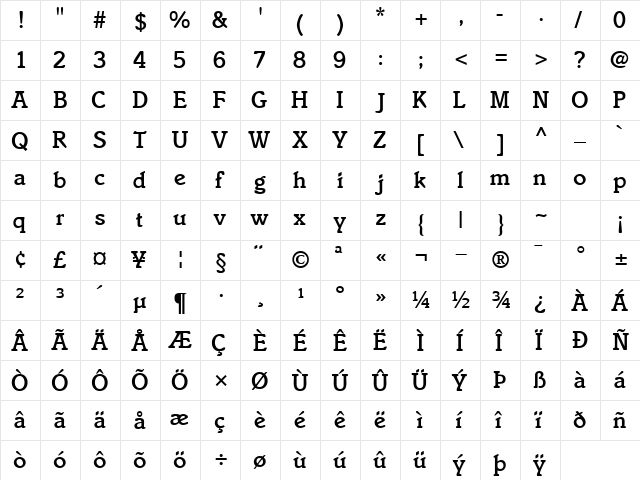
EnsembleMediumSSK Regular Font Preview
EnsembleMediumSSK Regular
EnsembleMediumSSK Regular Font Details
Design Context for EnsembleMediumSSK Typeface
EnsembleMediumSSK takes a measured approach to typography — its balanced proportions and neutral character make it a reliable workhorse for both digital and print work.
Pro Tip: Use EnsembleMediumSSK in both headline and body roles to test its range before committing to a single application.